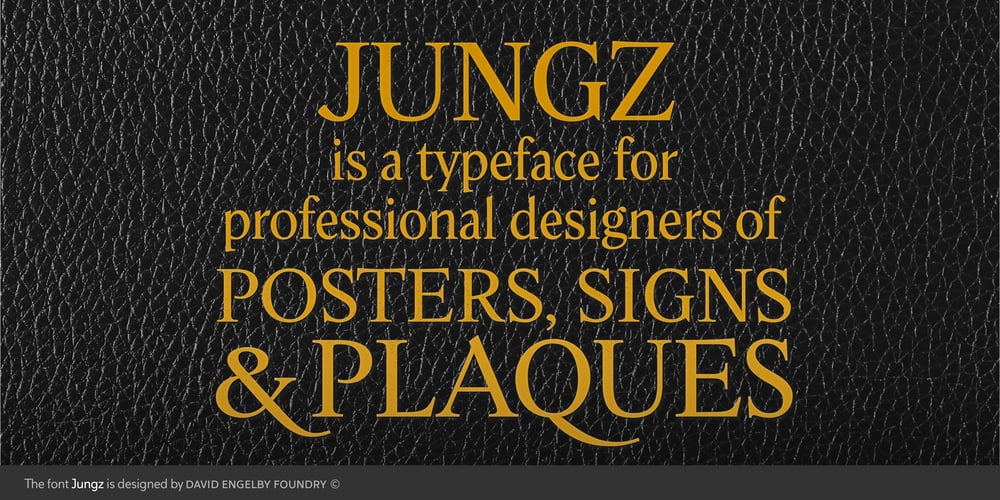
Jungz Font Family was designed by David Engelby and published by David Engelby Foundry. Jungz contains 1 styles and family package options. Jungz is a typeface for professional designers of posters, signs, displays, facades and plaques!Its sole purpose is to make any classic typographic style stand out as legible and beautiful on any medium.Jungz has many alternate glyphs and European language characters.